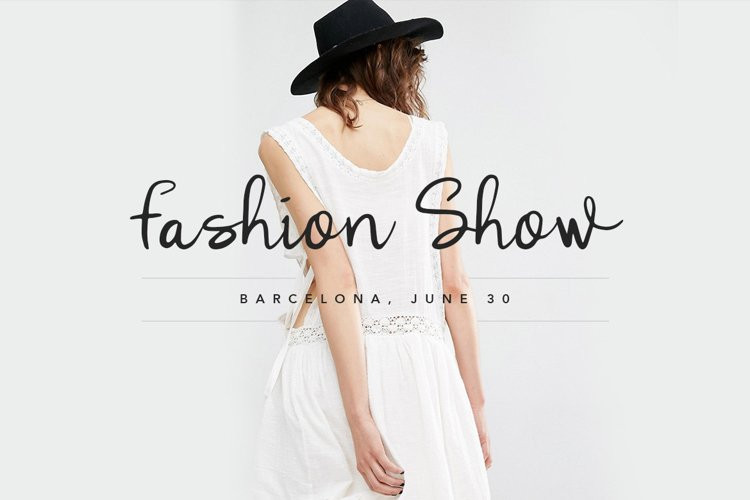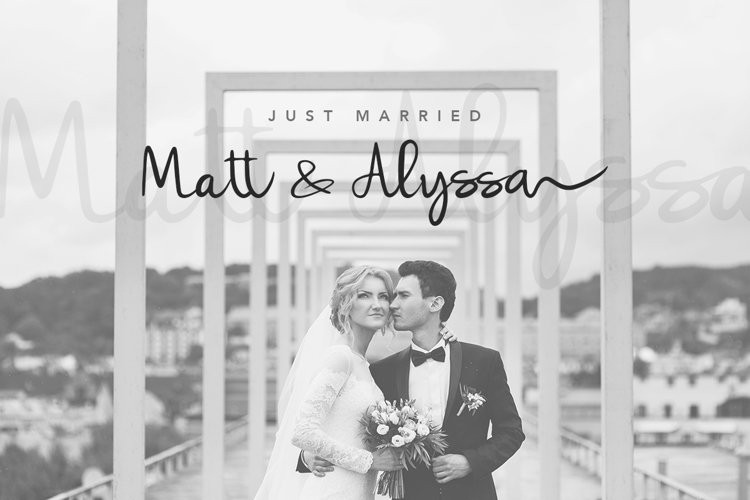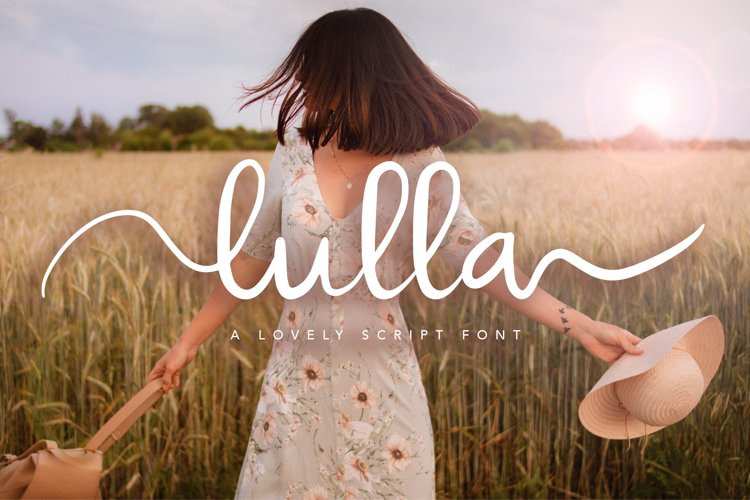
Lulla Font
Lulla FontA handcrafted lovely script font. Lulla font is suitable for any design needs; quote, wedding, book, banner, poster, print media, promotion, business card, profile, fashion, makeup etc.